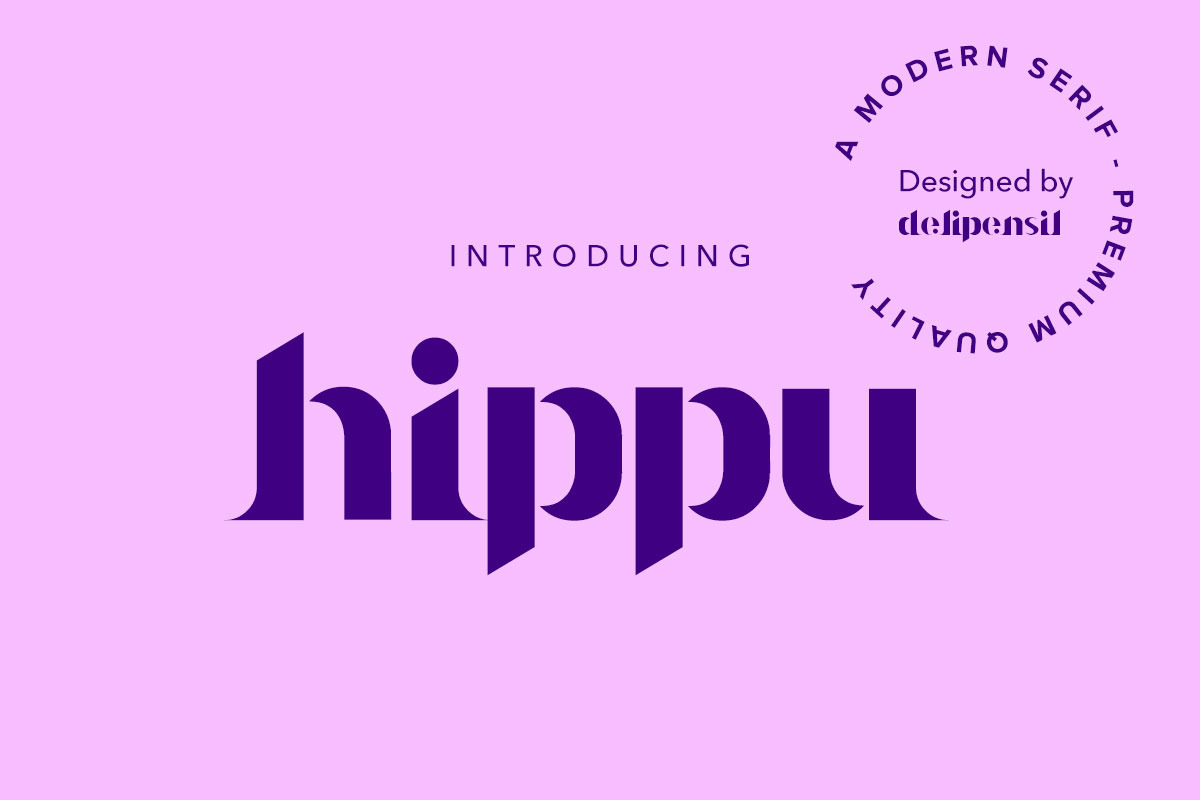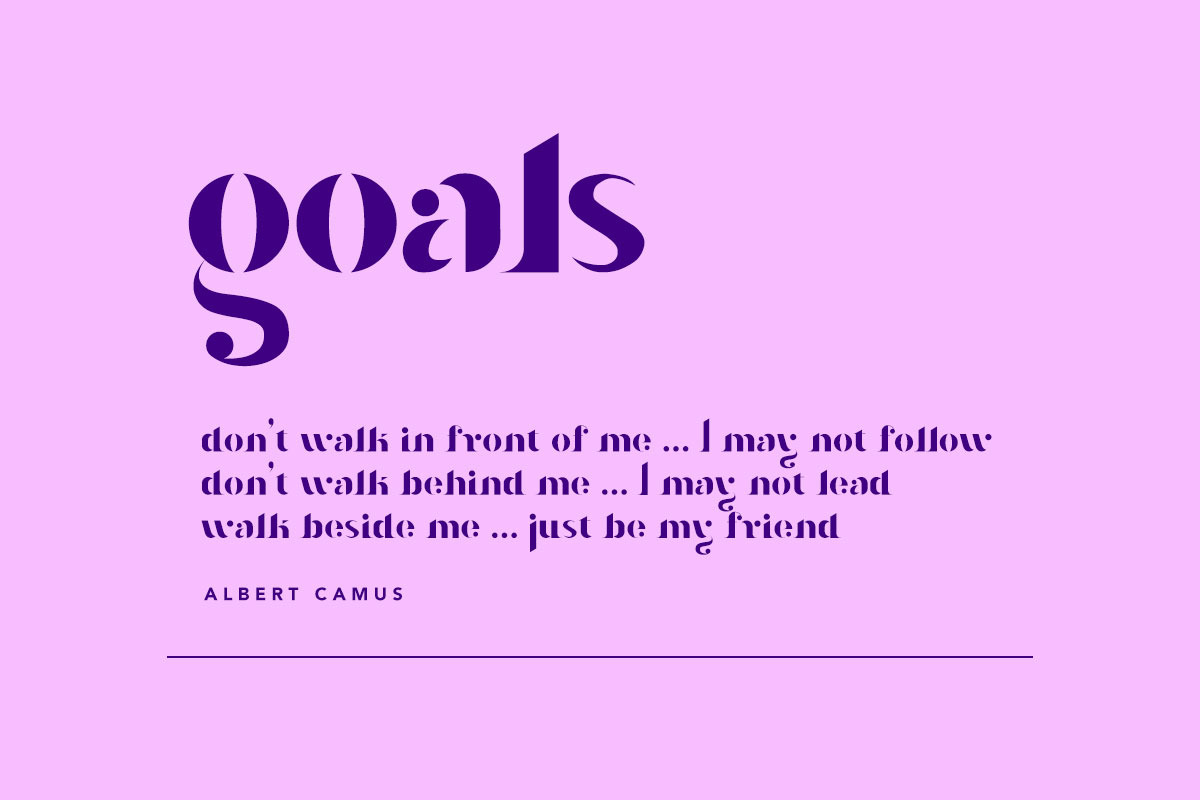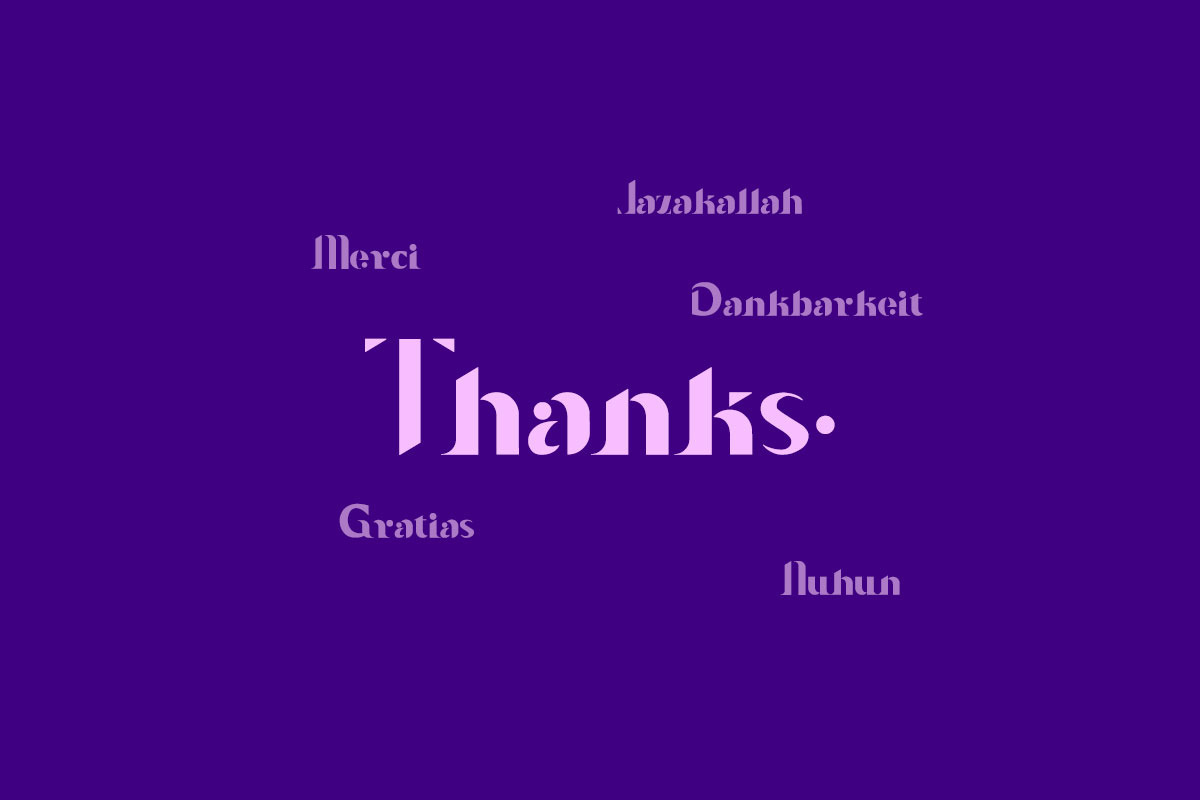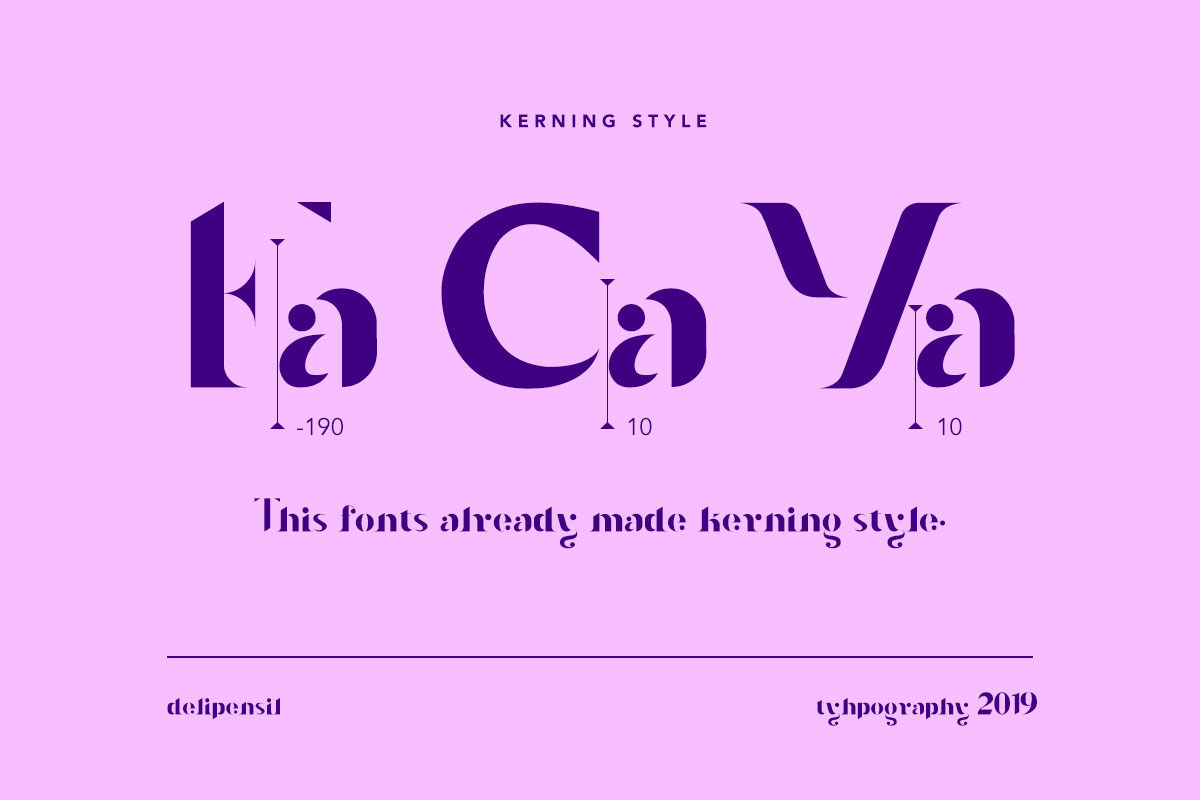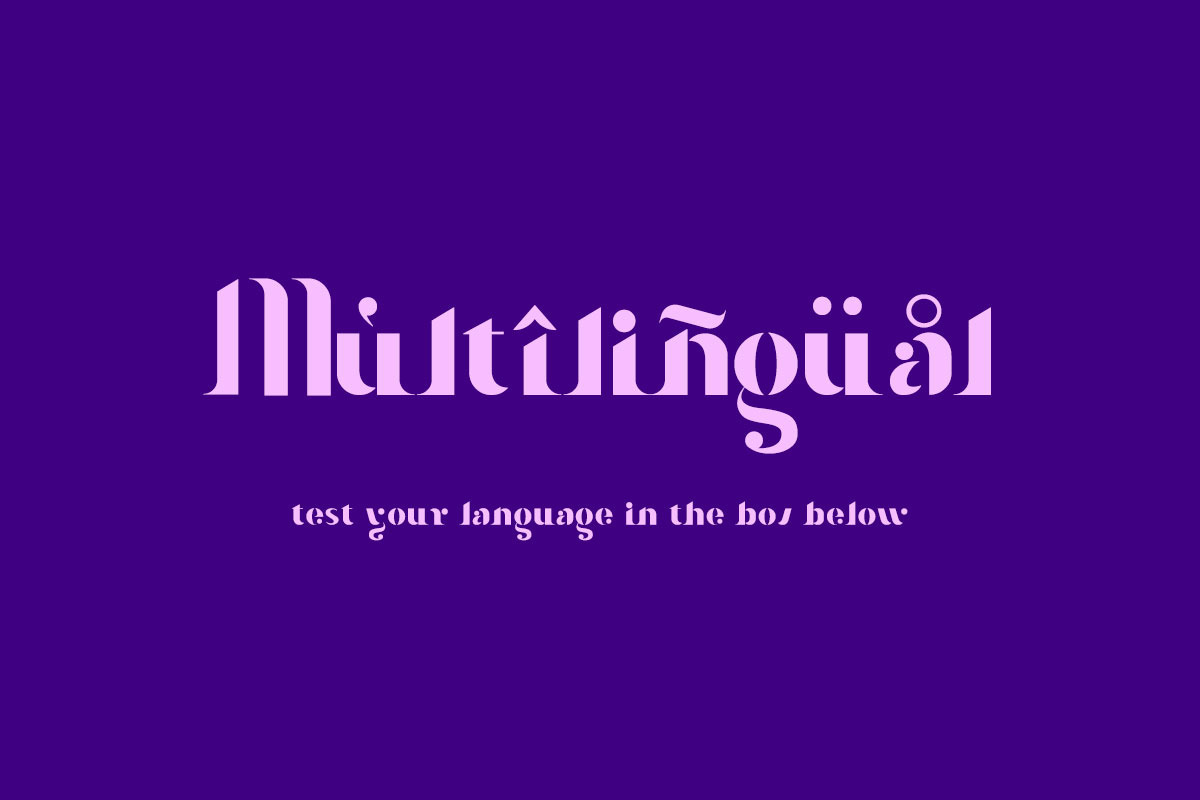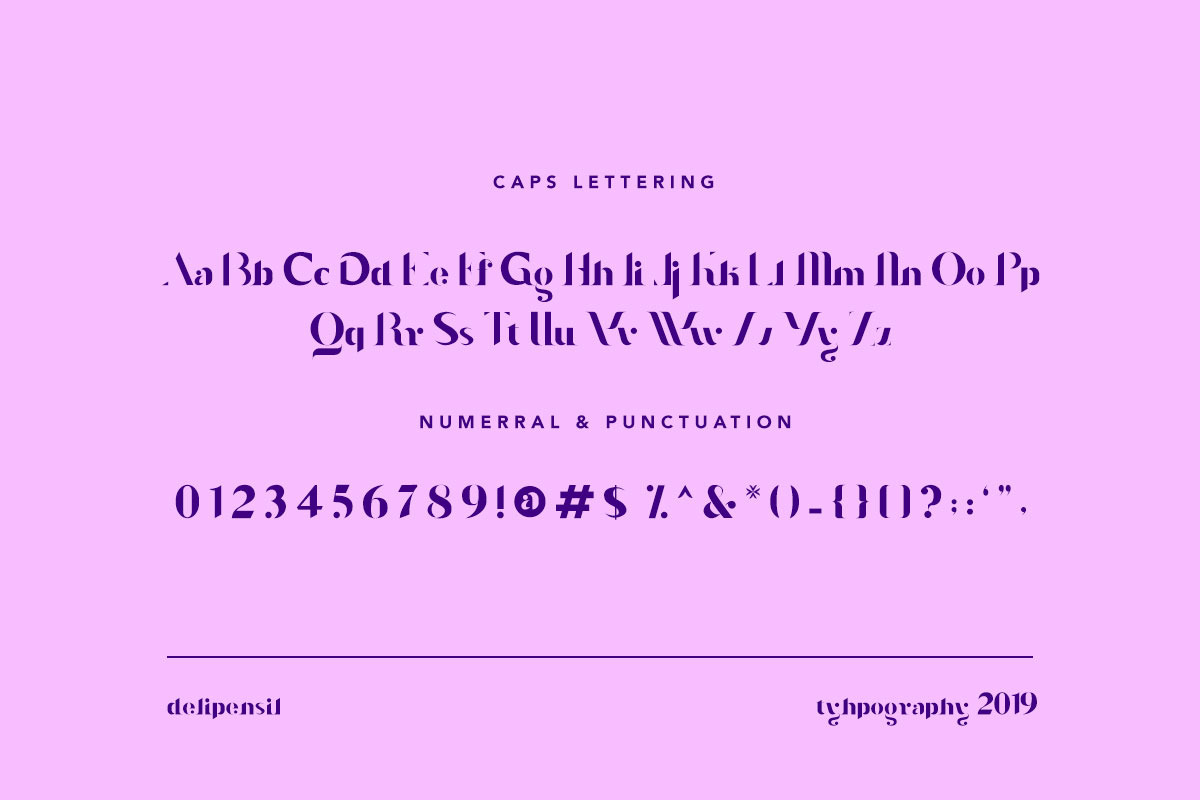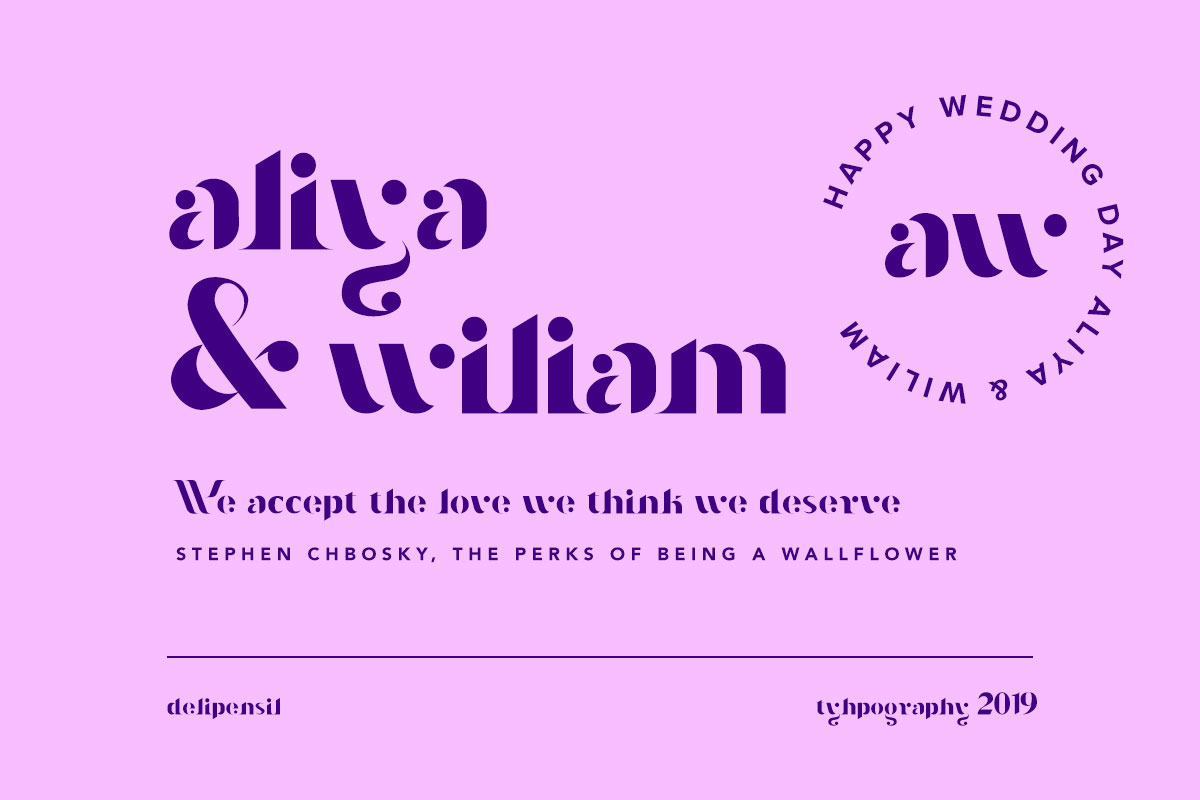
Hippu Medium Font
Bismillah, Hippu Medium Font is an elegant, clean, classic, and beautiful font. Use it for headlines, paragraphs, cover photos, web design, logo, and everything with the elegant touch you can get it now :)
Hippu-Medium Font Style
Hippu-Medium Numeral & Punctuation
Hippu-Medium Language Style
Hippu-Medium Kerning Style
Why Hippu Medium Font is worth a look
Hippu Medium Font by delipensil fits naturally into Branding, posters, packaging, typography.